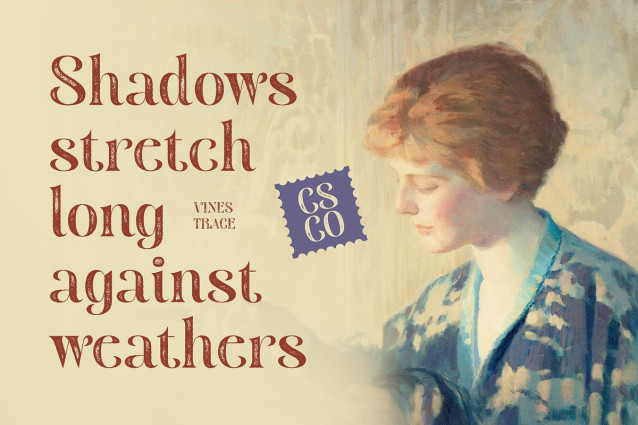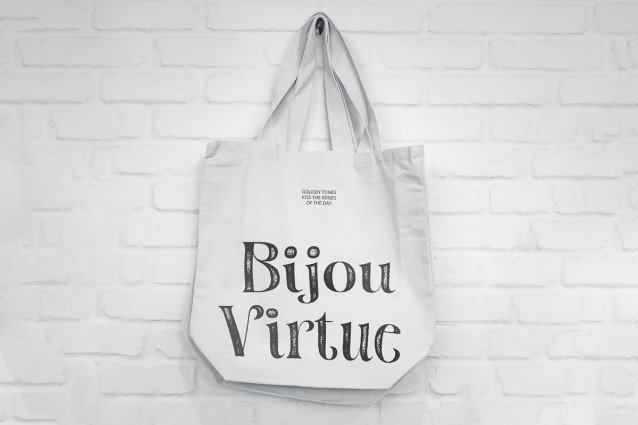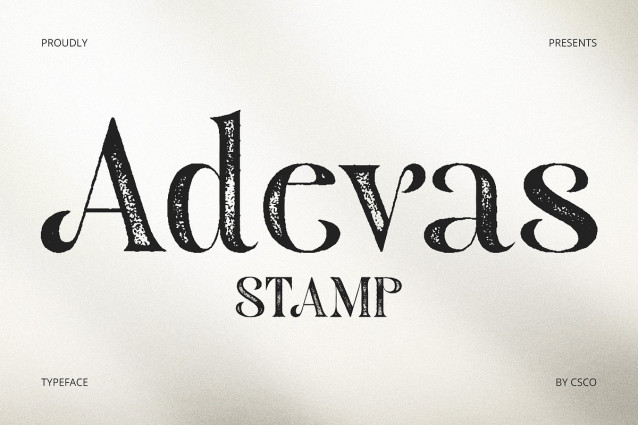
Adevas Stamp Font
Adevas Stamp Font is a modern serif font that combines clean, refined forms with a bold stamp texture, creating a unique blend of sophistication and vintage charm. Its elegant structure and strong serif details offer a polished and professional appearance, while the stamped effect brings a tactile, handcrafted quality.
Elegant Serif Style with Contemporary Flair Designed with balanced proportions and sharp, graceful serifs, Adevas Stamp reflects a contemporary take on traditional serif typography. It maintains a luxurious feel with modern precision—making it ideal for upscale branding, editorial layouts, and visual identities that require both clarity and character.
Stamp Effect for Vintage Texture and Visual Depth The bold stamp texture adds richness and depth to each letterform, delivering a subtle ruggedness that contrasts beautifully with its clean lines. This effect introduces an element of imperfection, suggesting authenticity, craft, and heritage—perfect for designs that aim to feel both stylish and grounded.
Where Modern Design Meets Timeless Character Adevas Stamp is the ideal serif font for designers seeking to combine high-end aesthetics with a sense of artisanal texture. Its fusion of clean form and stamped personality makes it perfect for brands and projects that value both visual sophistication and creative authenticity.